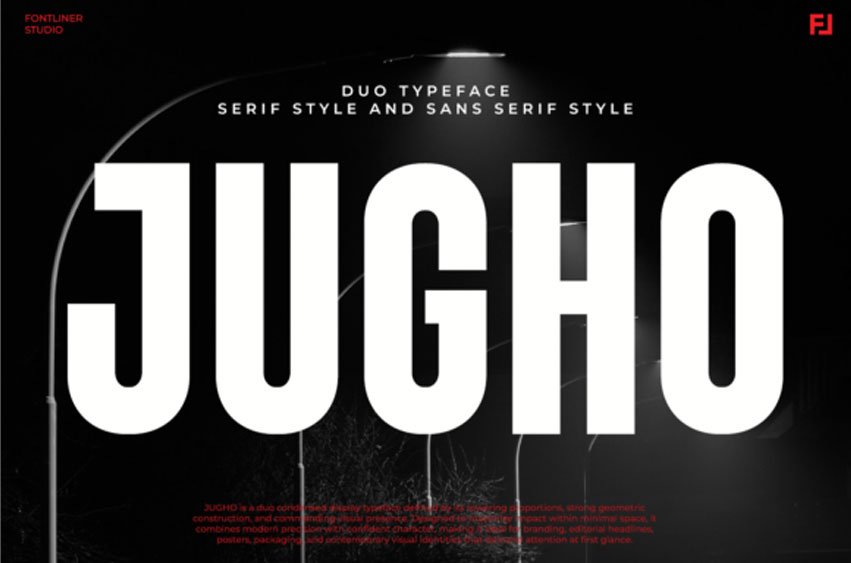
Jugho Font is a bold duo condensed typeface that merges a powerful urban serif with a modern geometric sans serif, delivering exceptional versatility for contemporary design.
Designed for brands that demand visibility and impact, Jugho thrives in fashion campaigns, label products, magazine covers, posters, packaging, advertising, music artwork, technology branding, and modern editorial layouts. Whether creating luxury branding or urban-inspired designs, Jugho delivers a distinctive and memorable presence.